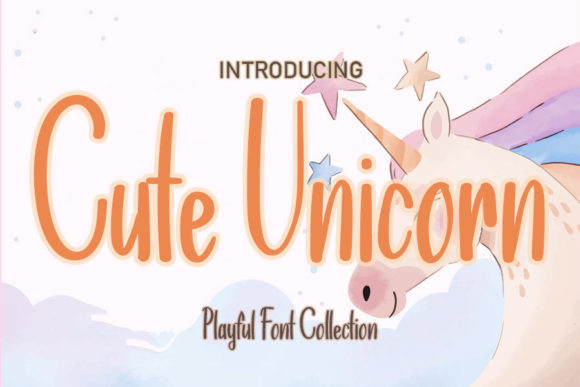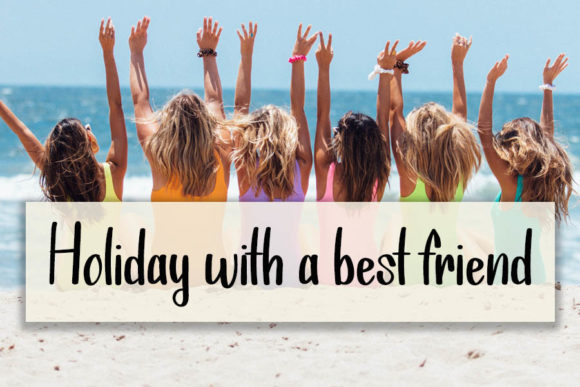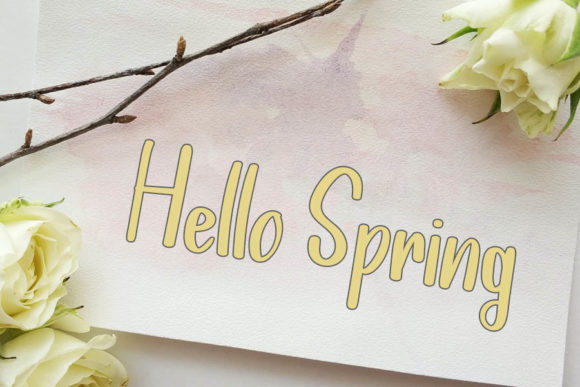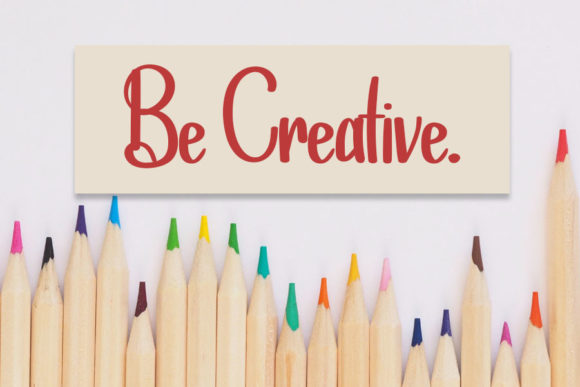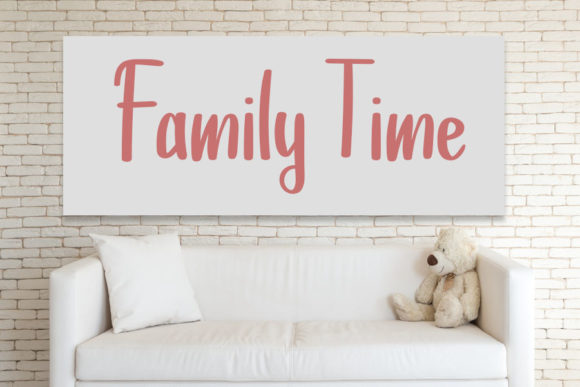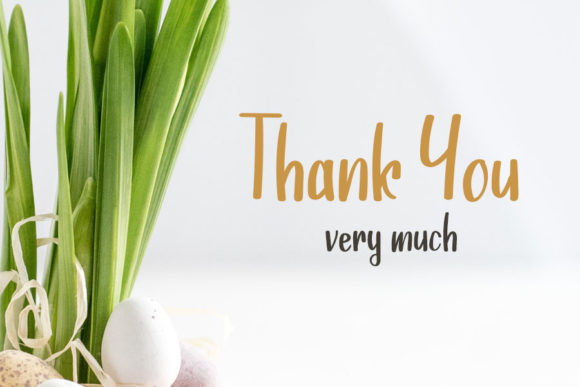
Cute Unicorn Font
About Cute Unicorn Font
Cute Unicorn is a cute and trendy handwritten font. Its natural and unique style makes it incredibly fitting to a large pool of designs. The only limit is your imagination!